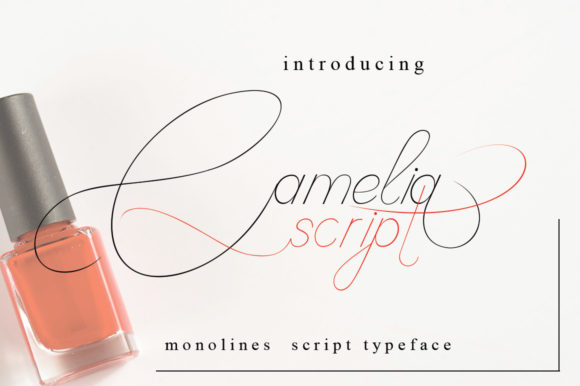
Prepare to be swept away by the elegance and charm of Camelia Script Font, a monoline script that exudes a captivating aura of sweetness and grace. Designed by the talented jehansyah251, this font is poised to transform your creative projects into masterpieces.
Step into a world of sophistication and refinement as you explore the endless possibilities of Camelia Script Font. Its delicate strokes and graceful curves dance across your designs, adding a touch of timeless allure. Whether you're crafting invitations, logos, or social media graphics, this font will elevate your work to new heights.
With Camelia Script Font, you'll discover a versatile companion that effortlessly adapts to your unique style. Express your creativity through a spectrum of artistic possibilities, from delicate wedding invitations to whimsical branding. The font's versatility extends to a variety of design projects, making it an indispensable tool for any creative professional.
Indulge in the beauty of Camelia Script Font and let your imagination soar. Its charming personality and undeniable allure will captivate your audience, leaving a lasting impression that sets your work apart. Embrace the elegance of Camelia Script Font and elevate your designs to new levels of artistry.